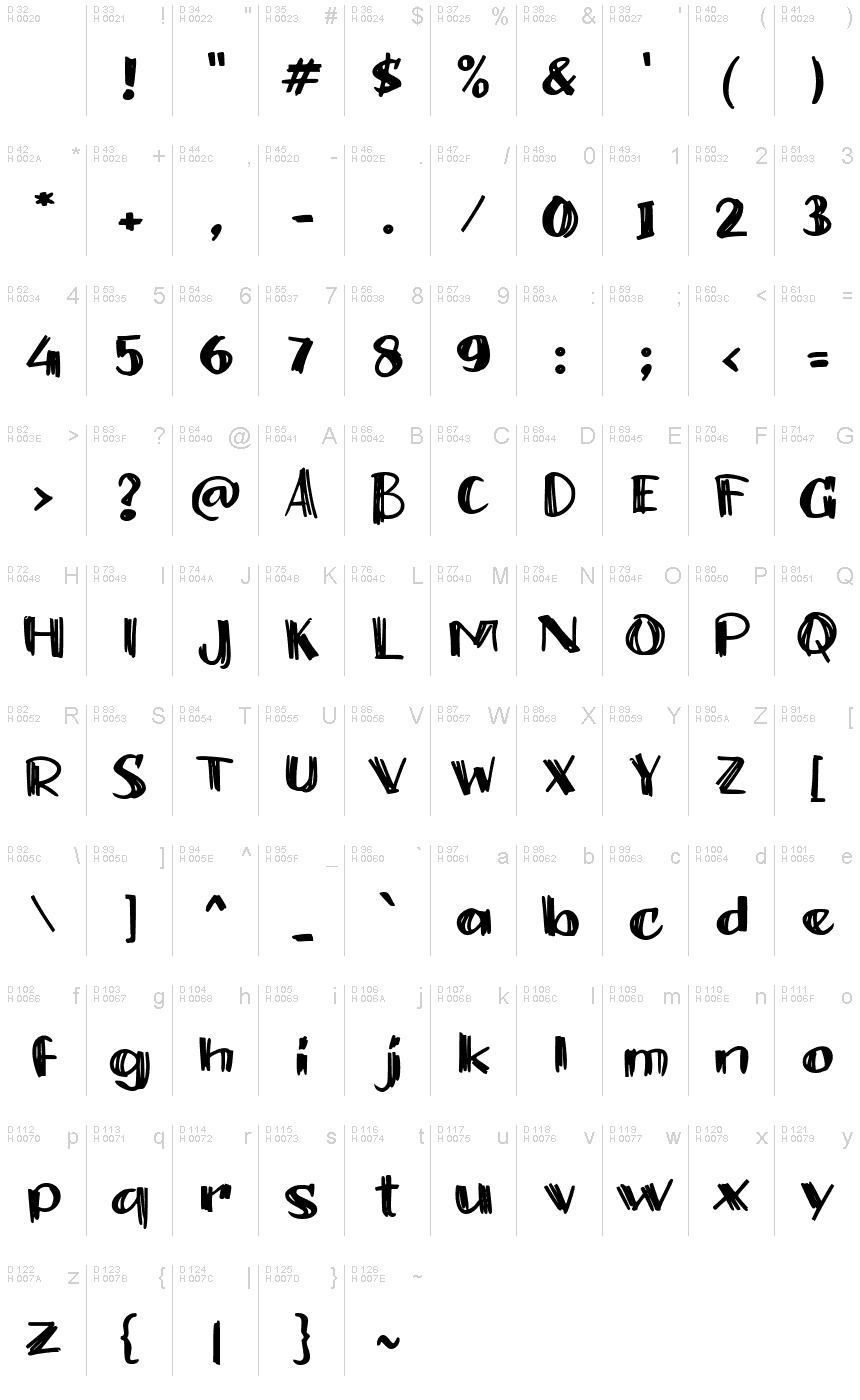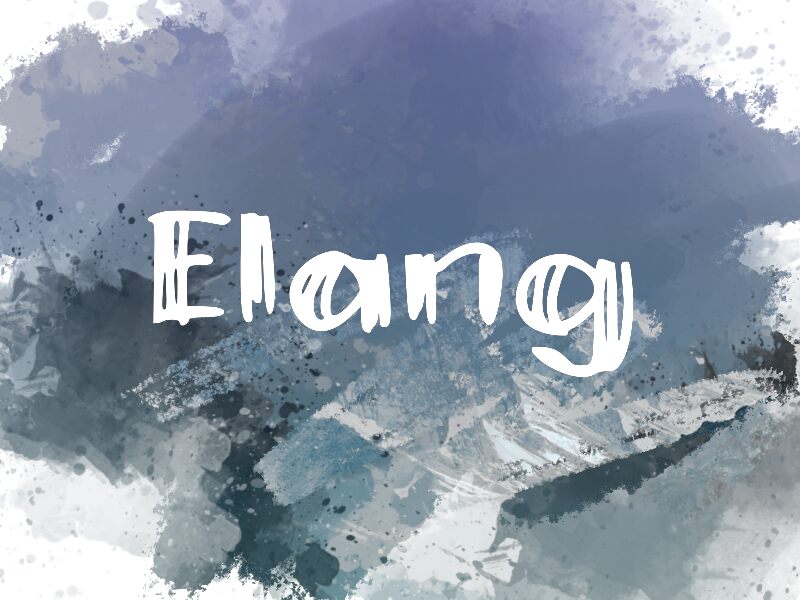
Elang
Elang, the bold semi-expanded script font designed by wep, is perfect for projects that require a unique and edgy aesthetic. With its trash style, Elang adds a touch of rebellion to any design, making it suitable for album covers, streetwear brands or even gritty movie posters. Its bold weight ensures that your message is communicated with impact while its semi-expanded width provides enough breathing room for maximum legibility. If you're looking to make a statement with your typography, Elang is the perfect choice for you.